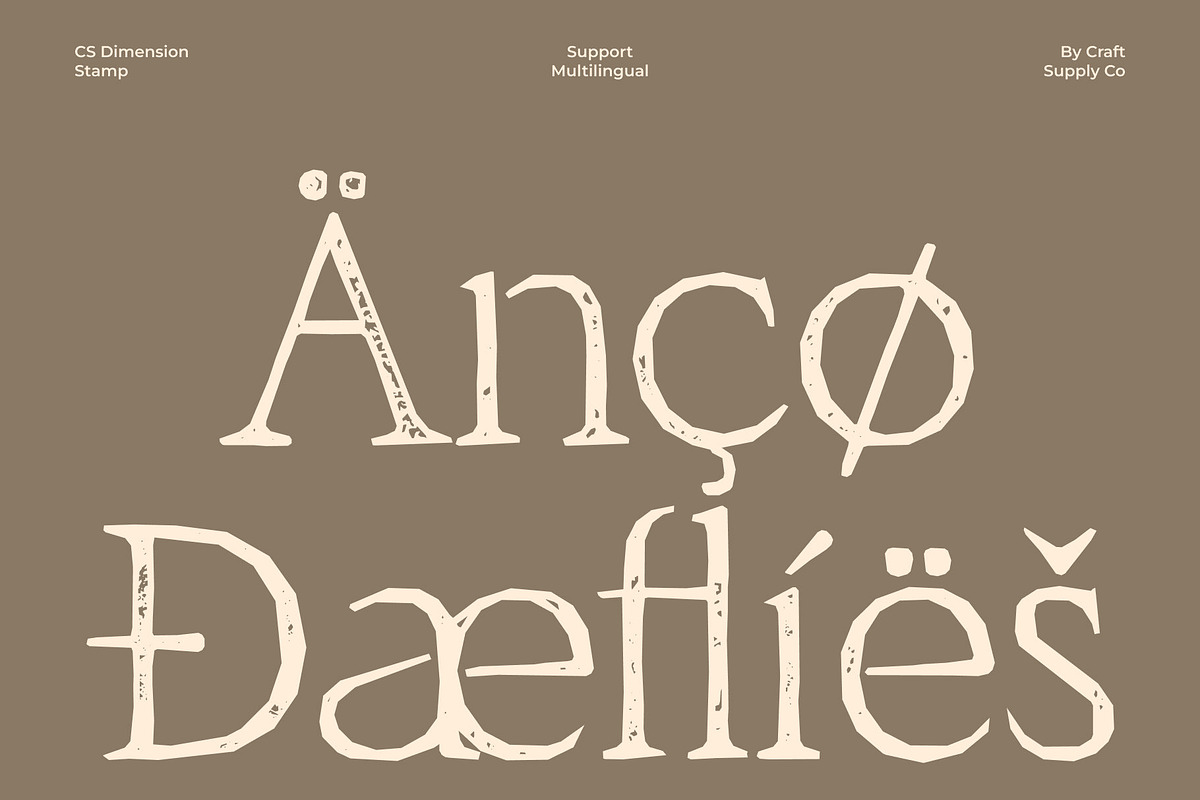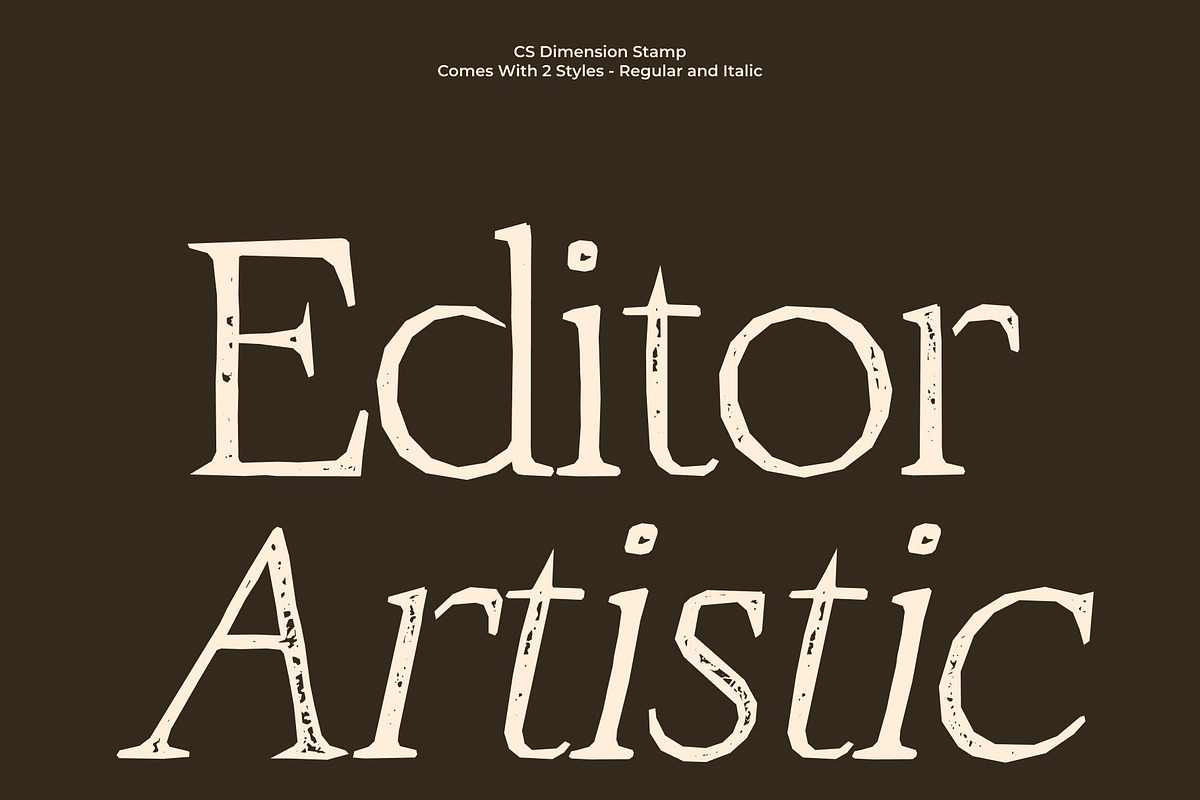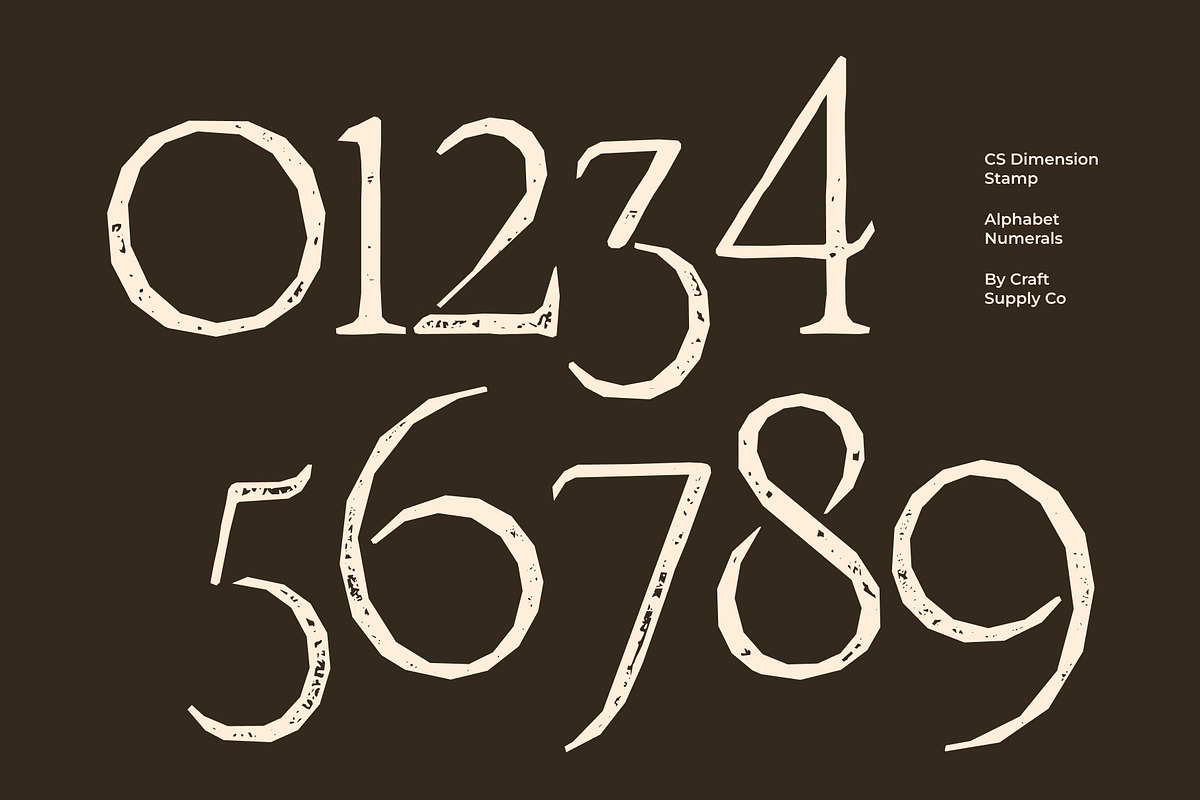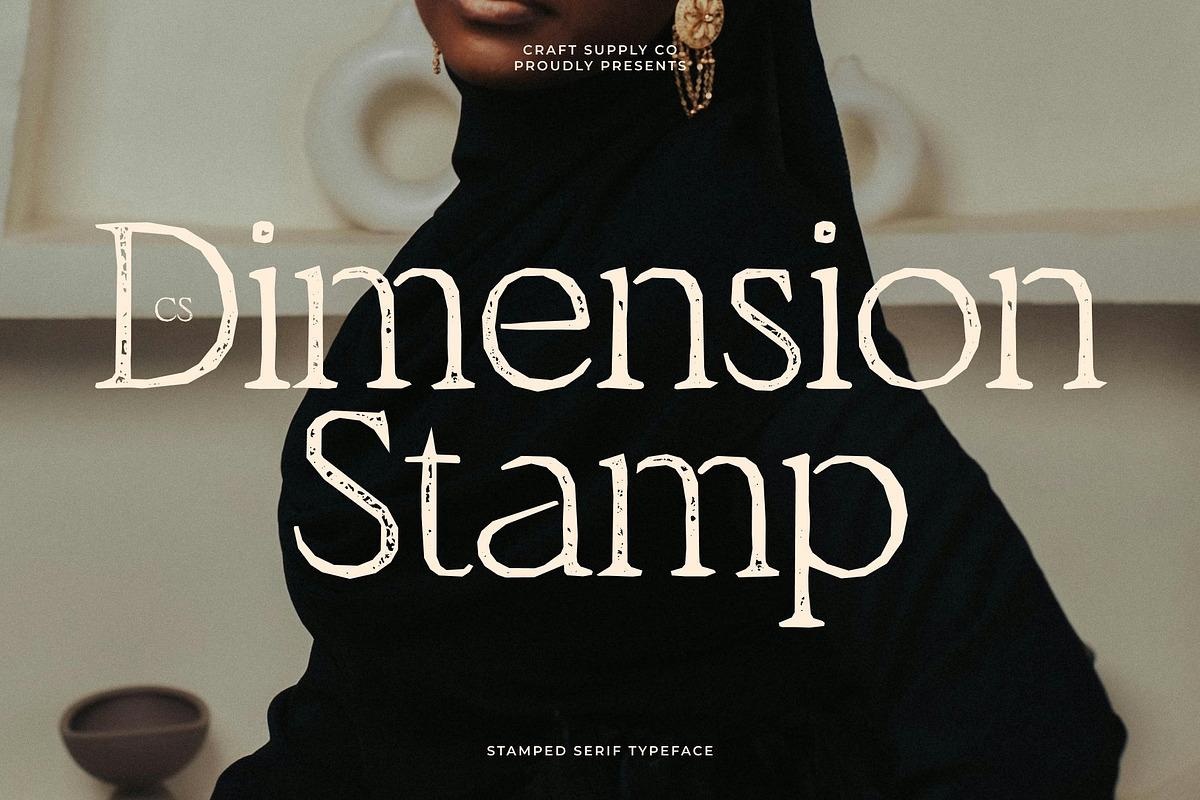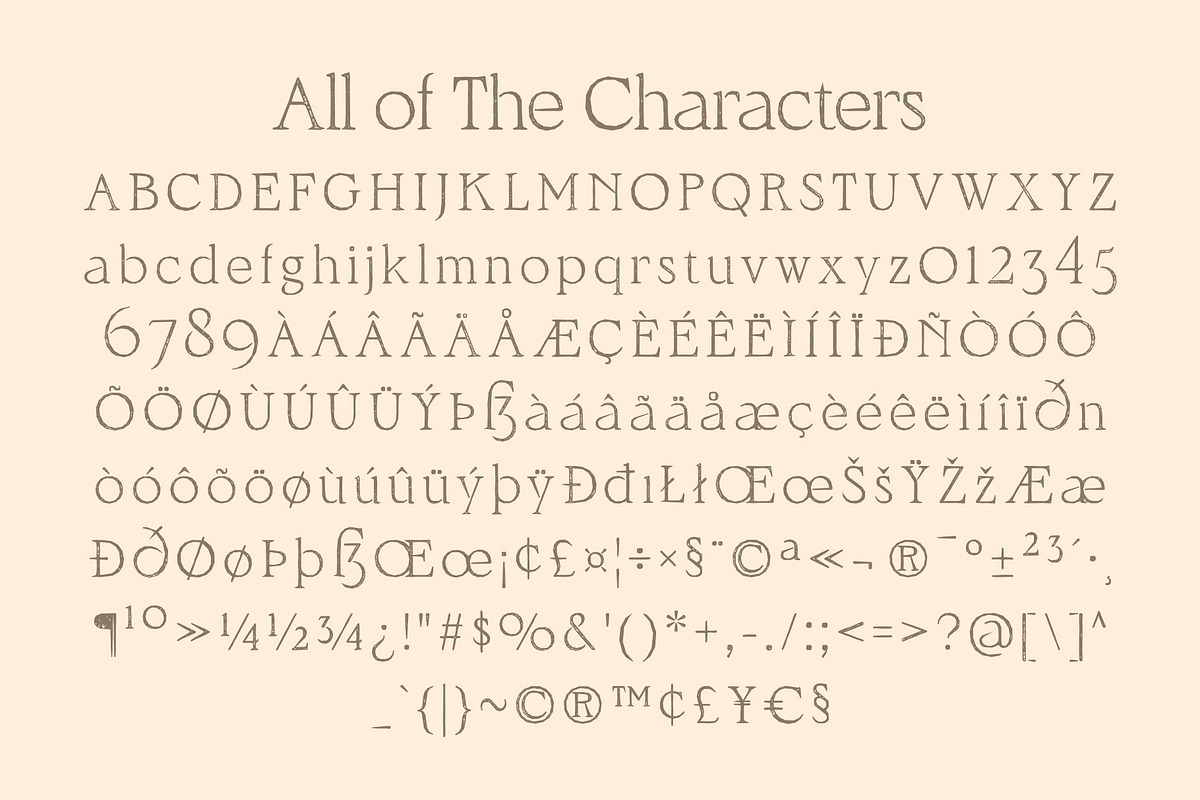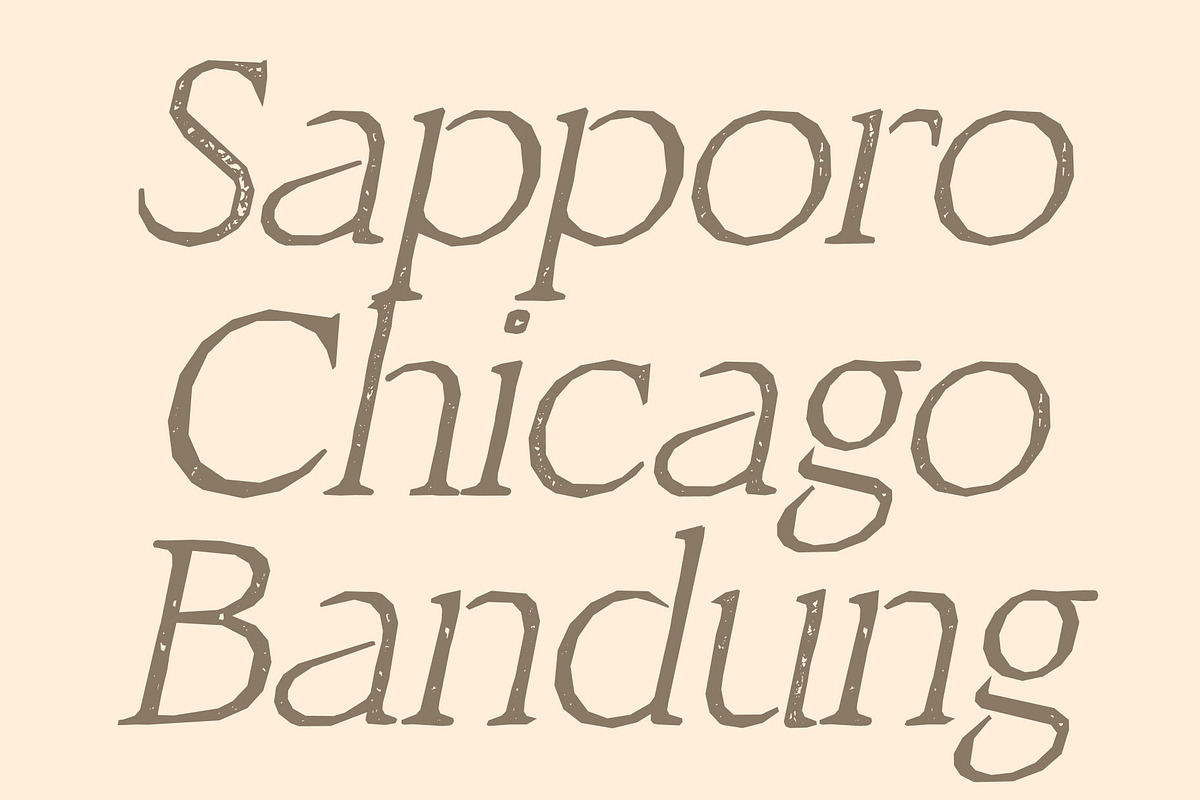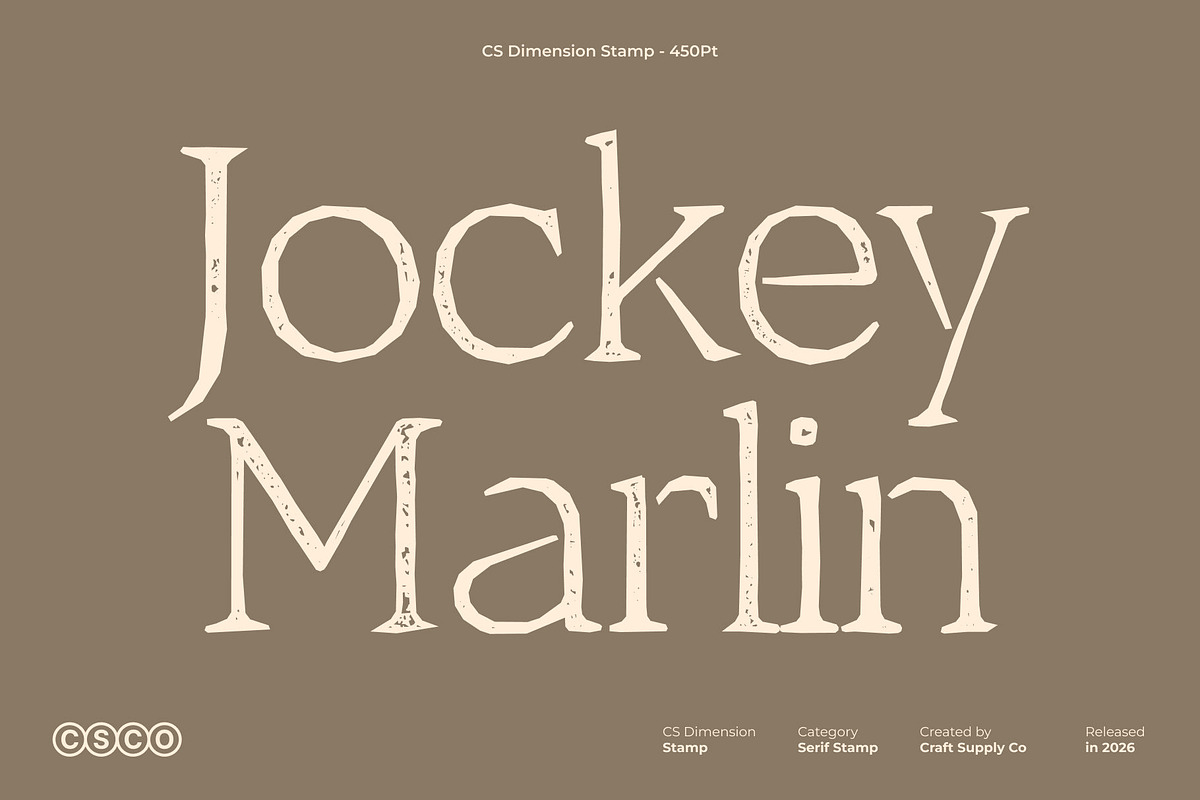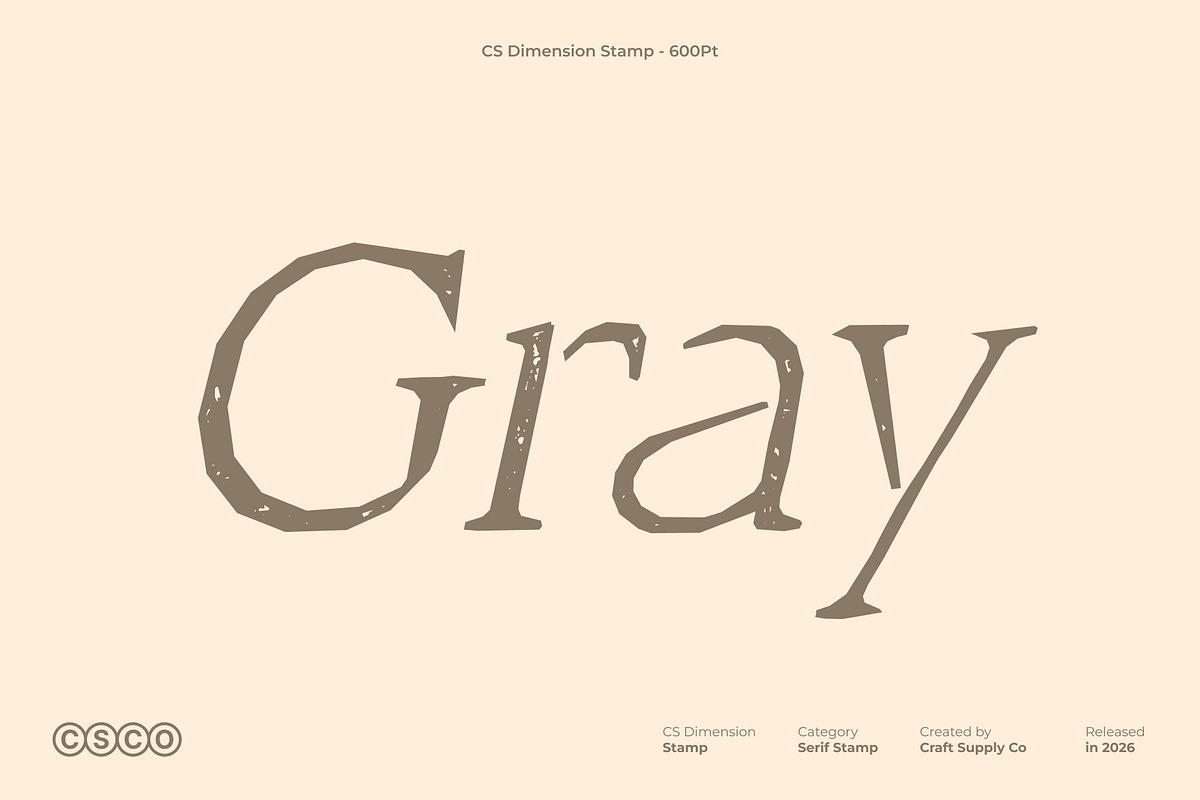
CS Dimension Stamp
CS Dimension Stamp – Elegant Serif with Refined Vintage Impression
Modern Serif with Slim Proportions and Classic Stamp Texture This font is a modern serif typeface that blends minimalist sophistication with a beautifully aged stamp effect. Its slim, graceful letterforms retain their refined elegance while gaining a subtle printed texture that evokes classic ink impressions and timeless craftsmanship.
Understated Luxury with an Artistic Vintage Touch The slender proportions create a clean and polished aesthetic, while the stamp texture introduces gentle imperfections that add warmth and authenticity. This balance transforms the font from purely modern into something more expressive capturing both contemporary refinement and nostalgic charm.
Elegant Readability for Professional Design Despite its textured character, the font maintains excellent clarity and readability. The modern serif structure keeps text crisp and professional, making it suitable for both print and digital use while adding a unique tactile personality.
Perfect for Editorial, Branding, and Luxury Visuals This font is ideal for editorial layouts, high-end branding, packaging, invitations, and business materials. Its combination of slim elegance and vintage texture elevates contemporary projects with a sophisticated, timeless impression.
CS Dimension Stamp Regular
CS Dimension Stamp Italic